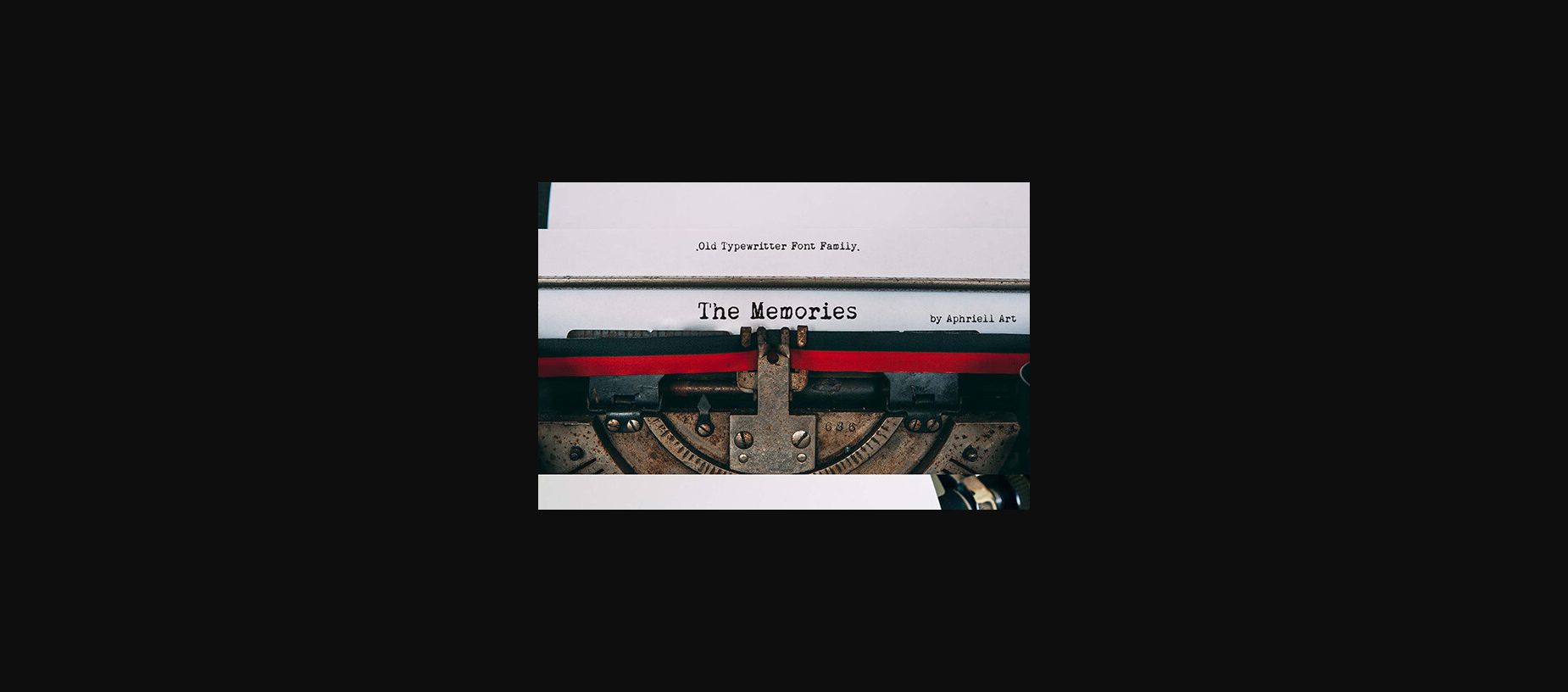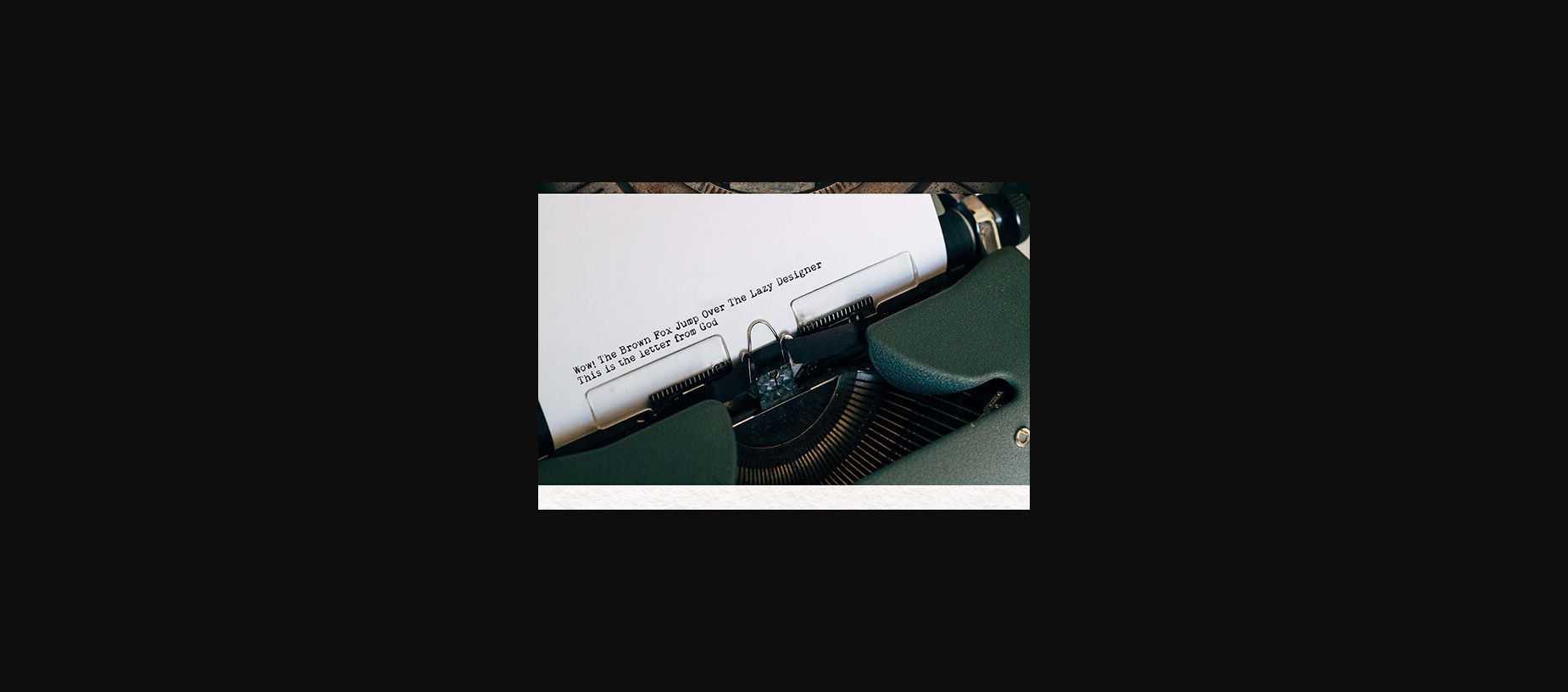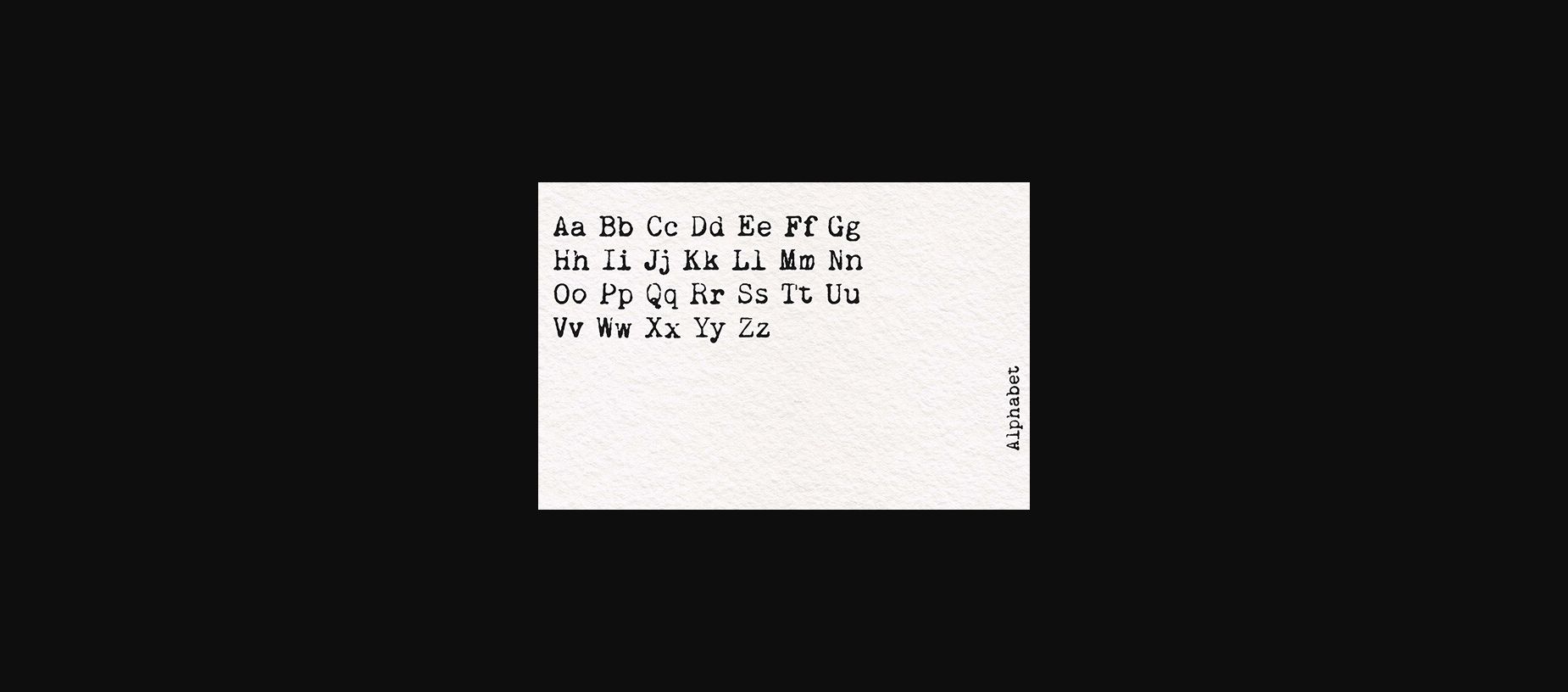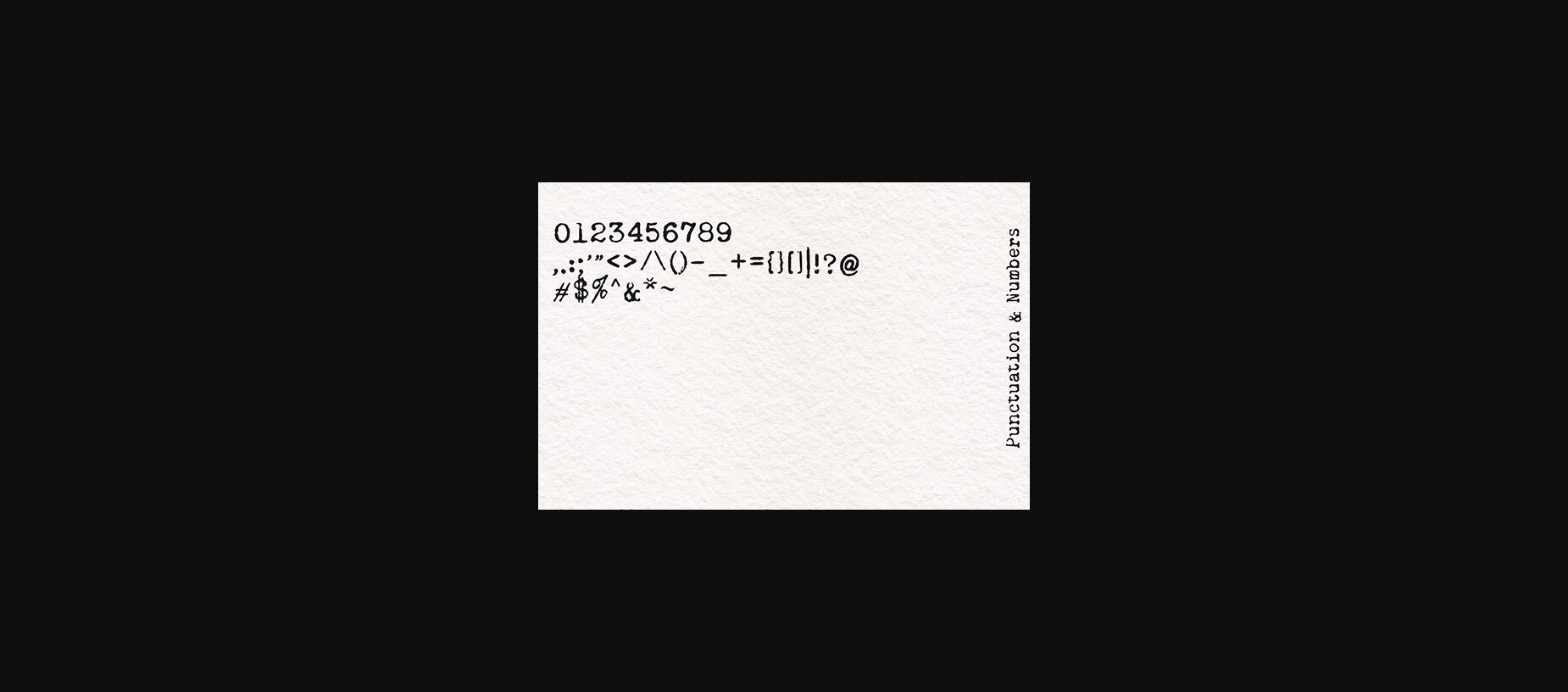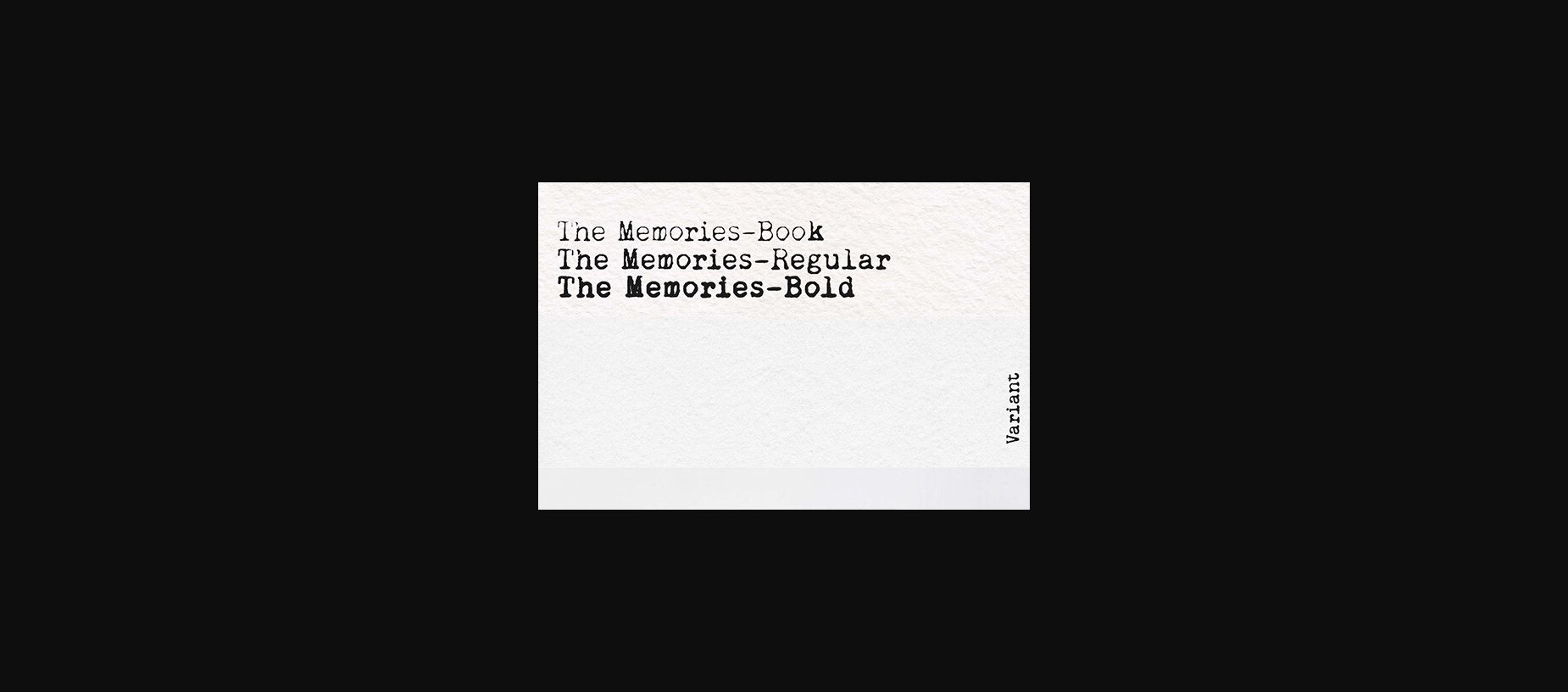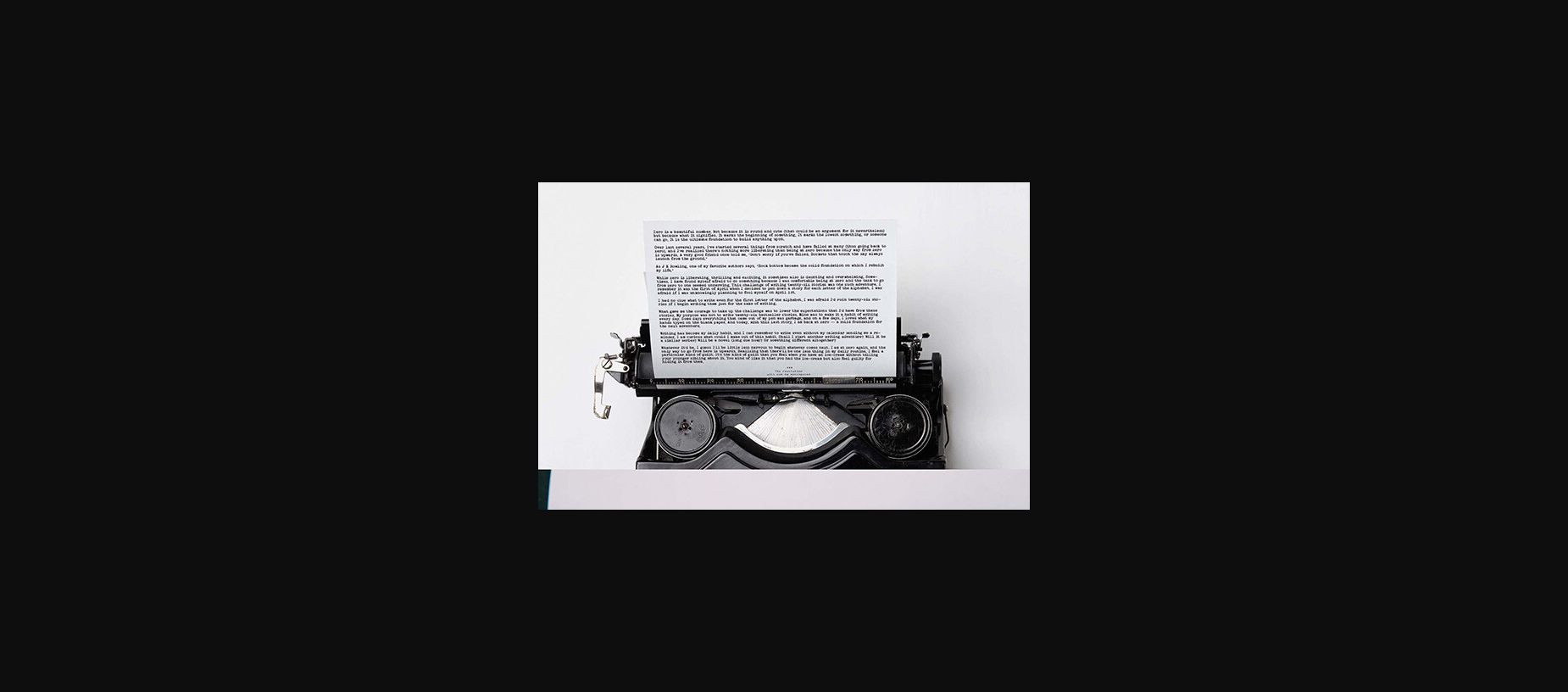
About The Memories Font
The Memories is an elegant and bold sans serif font. Fall in love with its incredibly
versatile style and use it to create gorgeous wedding invitations, beautiful stationary art, eye-catching social media posts, and much more!